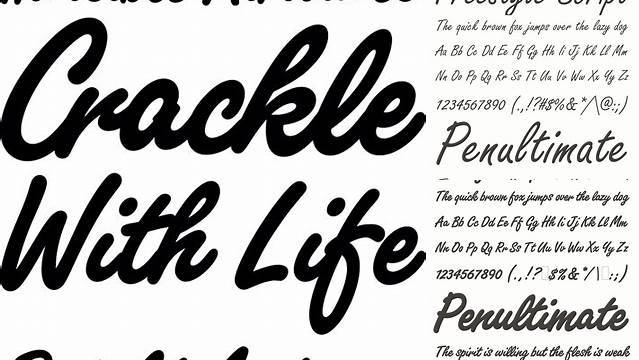
Freestyle Script Font Bold: The Ultimate Design Guide
Introduction to Freestyle Script Font Bold
Guys, let's dive into the world of typography, specifically focusing on the Freestyle Script Font Bold. This font is a real gem in the design world, known for its elegant and flowing characters. When we talk about Freestyle Script, we're talking about a typeface that mimics handwriting, bringing a personal and informal touch to any project. But what makes the bold version so special? Well, the added weight gives it a stronger presence, making it perfect for headlines, titles, and any place where you need a bit more emphasis. Freestyle Script is like that friend who's always dressed stylishly but still manages to look effortlessly cool. Its unique characteristics make it stand out, and understanding its nuances can help you use it effectively in your designs. Whether you're working on wedding invitations, branding materials, or even a blog header, knowing how to wield this font can elevate your work to a whole new level. The bold variant, in particular, adds a layer of sophistication and clarity, ensuring your message is not only seen but also felt. So, let's explore the ins and outs of this fantastic font and see how you can make the most of it. From its history to its best use cases, we've got you covered. Trust me, by the end of this guide, you'll be a Freestyle Script Font Bold pro!
History and Evolution of Freestyle Script
To truly appreciate the Freestyle Script Font Bold, we gotta take a little trip back in time and explore its origins. The font was designed by the talented Martin Wait back in 1981. Imagine the design landscape of the early '80s – a time of transition in typography, with designers experimenting with new styles and technologies. Martin Wait, with his innovative approach, created Freestyle Script to capture the essence of handwritten scripts but with a modern twist. It was released by Adobe, a company synonymous with design and creativity, which gave it immediate credibility and exposure. Over the years, Freestyle Script has seen its fair share of adaptations and uses. Its initial appeal came from its ability to bring a personal touch to designs, something that was highly valued in an era dominated by more rigid, formal typefaces. The evolution of Freestyle Script is quite interesting. It started as a single weight font, but as design trends evolved, so did the font family. The bold version, which we're focusing on today, is a significant addition. It adds a level of versatility that the original lacked, making it suitable for a wider range of applications. The Freestyle Script Bold retains the charm and elegance of the original but with a stronger, more assertive presence. This made it a favorite for designers looking to make a statement. Today, Freestyle Script stands as a testament to timeless design. It has remained relevant through changing trends, proving its enduring appeal. Its history is a story of innovation, adaptation, and a keen understanding of what designers need. So, next time you use Freestyle Script, remember the journey it has taken and the creative minds that brought it to life.
Key Characteristics of Freestyle Script Font Bold
Alright, let's get into the nitty-gritty of what makes Freestyle Script Font Bold so unique. When you look at it, the first thing that probably jumps out is its flowing, cursive style. It's designed to mimic handwriting, giving it a personal and informal vibe that's perfect for adding a touch of elegance to your projects. But there's more to it than just the cursive look. The bold weight is a crucial element. It adds a certain gravitas and emphasis that the regular weight doesn't have. This makes it ideal for headlines, titles, and anywhere you need your text to really stand out. Think of it as the difference between whispering and speaking confidently – the bold weight has that extra oomph. One of the defining characteristics of Freestyle Script Bold is its high level of legibility, despite its decorative nature. The letters are well-formed and distinct, which means it's easy to read even at smaller sizes. This is a big plus, especially when you're using it in designs where clarity is key. The loops and swirls are graceful without being overly fussy, striking a perfect balance between style and readability. The contrast in stroke thickness also plays a significant role. The thicker strokes add weight and presence, while the thinner strokes maintain the font’s delicate and flowing appearance. This contrast is what gives Freestyle Script Bold its dynamic and visually appealing look. Each character in Freestyle Script Bold has its own personality, yet they all work together harmoniously. The connections between letters are smooth and natural, creating a seamless flow that’s pleasing to the eye. In short, Freestyle Script Font Bold is more than just a pretty typeface; it's a carefully crafted design that combines elegance, readability, and a touch of personality. Understanding these key characteristics will help you use it to its full potential in your creative projects.
Best Use Cases for Freestyle Script Font Bold
Now, let’s talk about where Freestyle Script Font Bold really shines. Knowing the best use cases for a font is crucial, guys, because using the wrong font in the wrong context can totally undermine your design. Freestyle Script Bold, with its elegant and assertive style, has a sweet spot in certain design applications. Think about invitations, for starters. Wedding invitations, party invites, you name it – this font can add a touch of class and sophistication. The bold weight gives it enough presence to stand out, making it perfect for headings and important details. It conveys a sense of occasion and celebration, which is exactly what you want for an invitation. Another great use case is in branding, particularly for businesses that want to project a sense of elegance and personal touch. Think of boutiques, spas, or even artisanal food brands. The Freestyle Script Bold can be used in logos, packaging, and marketing materials to create a memorable and stylish brand identity. It communicates a sense of quality and attention to detail, which can be a huge asset in competitive markets. Titles and headlines are another area where this font excels. Whether it's on a website, a poster, or a magazine spread, Freestyle Script Bold can grab attention and make a statement. Its readability, even with the decorative elements, ensures that your message comes across clearly. The bold weight adds that extra punch, ensuring your headline doesn’t get lost in the shuffle. Social media graphics can also benefit from a touch of Freestyle Script Bold. Using it sparingly in your posts can add visual interest and make your content stand out in a crowded feed. It’s great for quotes, announcements, or any text that you want to emphasize. However, it’s worth noting that Freestyle Script Bold isn’t ideal for large blocks of body text. Its decorative nature can make it tiring to read in long paragraphs. So, keep it for shorter bursts of text where its elegance can truly shine. In summary, Freestyle Script Font Bold is your go-to for adding a touch of sophistication and personality to designs that need to make a statement. Knowing where it works best will help you create visually stunning and effective communications.
Fonts Similar to Freestyle Script Font Bold
Okay, guys, sometimes you might be looking for something similar to Freestyle Script Font Bold but with a slightly different vibe. Maybe you need a font that complements it, or perhaps you want an alternative for a specific project. Knowing your options is always a good idea, so let’s explore some fonts that share characteristics with Freestyle Script Bold. First up, we have Brush Script MT Bold. This is a classic script font that, like Freestyle Script, mimics handwriting. It has a similar flowing style and a bold weight that gives it presence. Brush Script is a bit more casual and playful, so it’s a great alternative if you want something slightly less formal. Another solid option is Mistral. Mistral is known for its slanted, dynamic strokes that give it a sense of movement and energy. It shares the handwritten feel of Freestyle Script but has a more modern and edgy look. This makes it a good choice for projects that need a bit of flair and personality. If you’re after something a little more refined, consider Edwardian Script ITC. This font is elegant and sophisticated, with beautifully crafted letterforms. While it doesn’t have the same bold weight as Freestyle Script Bold, it can still be used effectively for headlines and titles where a touch of class is needed. It’s a bit more formal and traditional, making it perfect for high-end branding and elegant invitations. Another font worth mentioning is Lobster. Lobster is a bold, condensed script font that’s known for its distinctive ligatures and flowing connections. It has a vintage feel that can add character to your designs. Lobster is versatile and works well in a variety of applications, from logos to signage. Finally, Great Vibes is a lovely script font that strikes a balance between elegance and readability. It has a smooth, flowing style that’s similar to Freestyle Script but with a slightly more open and airy feel. Great Vibes is perfect for adding a touch of sophistication to invitations, quotes, and other short bursts of text. In conclusion, while Freestyle Script Font Bold is unique, there are plenty of fonts out there that share its charm and can be used in similar contexts. Exploring these alternatives can help you broaden your design toolkit and find the perfect typeface for any project.
How to Pair Freestyle Script Font Bold with Other Fonts
Font pairing, guys, is a crucial skill in design. You can't just slap any two fonts together and hope for the best. It's about creating visual harmony and ensuring your message is communicated effectively. When it comes to pairing Freestyle Script Font Bold with other fonts, there are a few golden rules to keep in mind. First off, contrast is key. Because Freestyle Script Bold is so decorative and expressive, you’ll want to pair it with a font that’s more simple and understated. Think of it like pairing a bold statement necklace with a classic, minimalist dress. The contrast makes both elements shine. One of the best pairings for Freestyle Script Bold is a clean sans-serif font. Something like Helvetica, Arial, or Open Sans can provide a nice, clean contrast that makes the script font stand out even more. These sans-serifs are highly legible and won’t compete with the decorative nature of Freestyle Script. They’re like the reliable sidekick that lets the superhero shine. Another great option is to pair Freestyle Script Bold with a simple serif font like Times New Roman or Georgia. Serifs have a classic, traditional feel that can complement the elegance of the script font. The key is to choose a serif that’s not too ornate, as you want to avoid creating a visual clash. A subtle serif font can add a touch of sophistication without overpowering the script. When pairing, think about hierarchy. Use Freestyle Script Bold for headlines, titles, or short bursts of text where you want to make a statement. Then, use your simpler font for the body text. This creates a clear visual hierarchy that guides the reader’s eye and makes your design more readable. It’s like the headline is the main event, and the body text provides the supporting details. Don’t be afraid to experiment, but always keep readability in mind. The goal is to create a design that’s not only visually appealing but also easy to read. Too much visual clutter can confuse your audience and undermine your message. So, keep it simple, keep it clean, and let Freestyle Script Font Bold do its thing. In summary, pairing Freestyle Script Font Bold with a simple sans-serif or a subtle serif font is a surefire way to create a visually balanced and effective design. Contrast is your friend, and hierarchy is your guide. Happy pairing!
Tips and Tricks for Using Freestyle Script Font Bold
Alright, let’s wrap things up with some tips and tricks for using Freestyle Script Font Bold like a pro. You’ve got the basics down, but these little nuggets of wisdom can really elevate your design game. First off, remember that less is more. Freestyle Script Font Bold is a statement font, so you don’t want to overuse it. Using it sparingly will make it more impactful. Think of it as a special ingredient in a recipe – a little goes a long way. Use it for headlines, titles, logos, or short phrases where you want to add a touch of elegance and personality. Avoid using it for large blocks of body text, as its decorative nature can make it tiring to read. Kerning is your best friend. Kerning, guys, is the space between individual letters. Because Freestyle Script Bold has flowing connections and unique letterforms, proper kerning is crucial. You might need to adjust the spacing between certain letters to ensure a smooth and balanced look. Pay close attention to areas where letters connect or where there are large gaps. A little tweaking can make a big difference in readability and visual appeal. Consider the context. Freestyle Script Bold has a certain vibe – it’s elegant, stylish, and a bit informal. Think about the message you’re trying to convey and whether this font aligns with it. It’s perfect for invitations, branding for certain businesses (like boutiques or spas), and creative projects where you want to add a personal touch. But it might not be the best choice for more serious or formal contexts. Play with color. Color can be a powerful tool when using Freestyle Script Bold. A contrasting color can make the font stand out even more, while a more subtle color can create a softer, more sophisticated look. Experiment with different color combinations to see what works best for your design. Just make sure the color you choose enhances readability rather than detracting from it. Don’t be afraid to experiment, but always prioritize readability and visual harmony. The goal is to create a design that’s not only beautiful but also effective in communicating your message. So, have fun with Freestyle Script Font Bold, but always keep these tips in mind. With a little practice and attention to detail, you’ll be creating stunning designs in no time.
So there you have it, guys! A comprehensive guide to Freestyle Script Font Bold. We've covered everything from its history and key characteristics to its best use cases and how to pair it with other fonts. We’ve also shared some tips and tricks to help you use it like a pro. Freestyle Script Font Bold is a versatile and elegant typeface that can add a touch of personality and sophistication to your designs. It’s perfect for headlines, titles, invitations, and branding materials where you want to make a statement. But like any font, it’s all about using it in the right context and with the right techniques. Remember, less is more. This font is a showstopper, so you don’t need to overuse it. Use it sparingly for maximum impact. Pay attention to kerning and make sure the spacing between letters is just right. Pair it with a clean sans-serif or a subtle serif font for a balanced and visually appealing design. And most importantly, consider the message you’re trying to convey and make sure the font aligns with it. Freestyle Script Font Bold has a certain charm and personality, so it’s best suited for projects where you want to add a personal touch. By following these guidelines and experimenting with different techniques, you can unlock the full potential of this fantastic font. Whether you’re designing a wedding invitation, creating a logo, or sprucing up your social media graphics, Freestyle Script Font Bold can help you create visually stunning and effective communications. So go ahead, guys, and give it a try. Have fun, be creative, and let your designs shine!